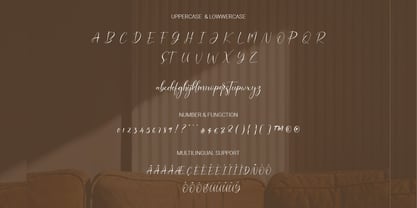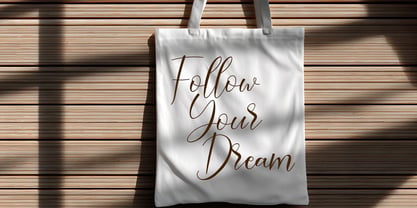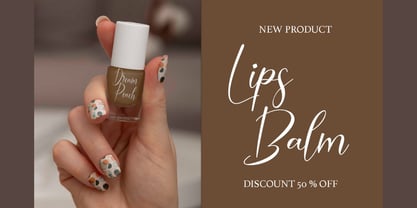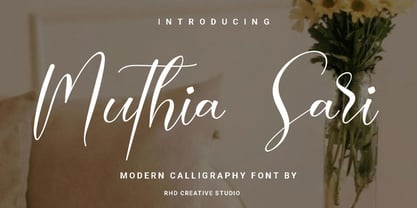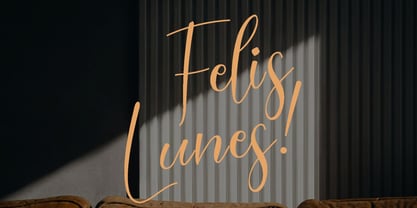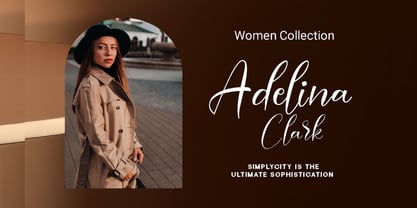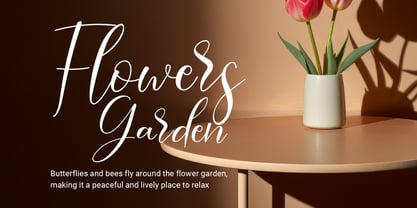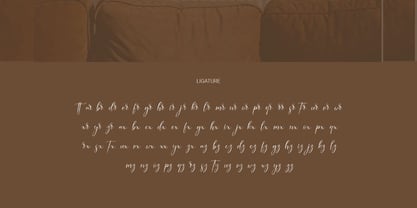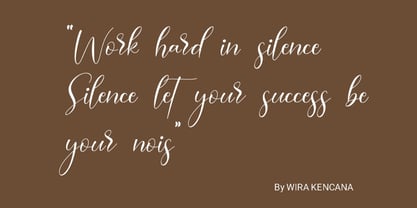
Muthia Sari
by RHD Creative
Hello everyone, I would like to introduce Muthia Sari - Modern Calligraphy Font. Muthia Sari - Modern Calligraphy Font with Handmade character. Muthia Sari - Modern Calligraphy Font, Modern font to make your design project stand out! Muthia Sari a perfectly choice for any creative endeavor, creating, modern, chic, lifestyle design such as logotype, title, cover, branding, invitations, wedding designs, display and magazine, social media posts, advertisements, printed quotes, product packaging, corporate brand, product designs, labels, photography, watermarks, special events and any other project with modern touch. Thank you for your purchase! Hope you enjoy with our font!